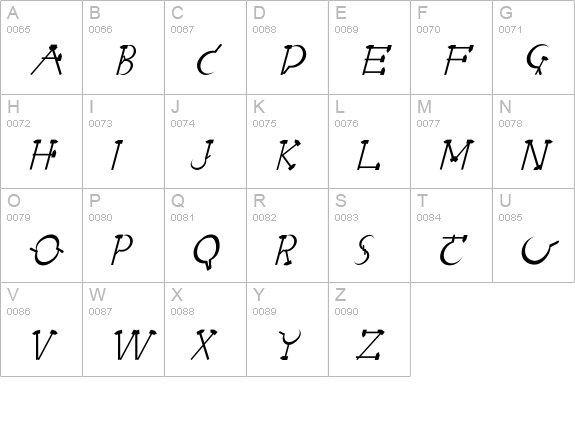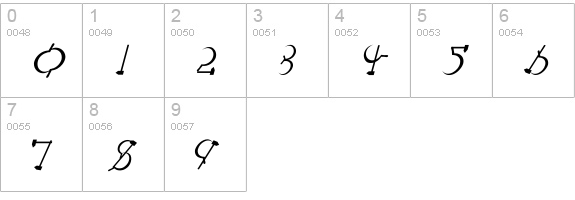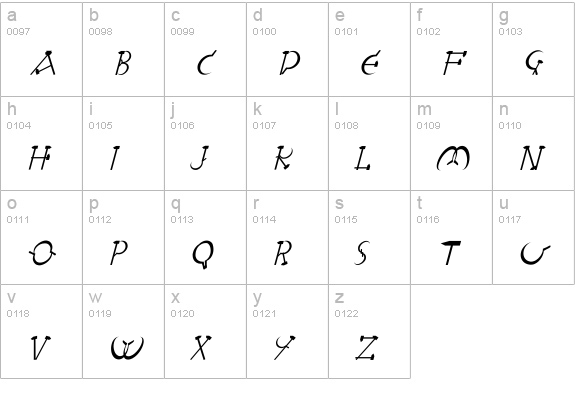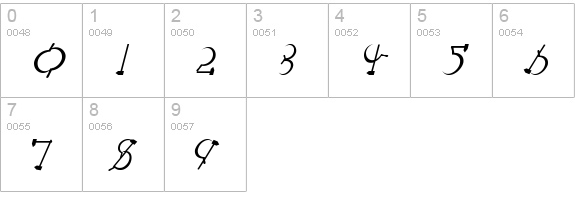
RedLetter Italic Font Details
RedLetter Italic is a distinctive, italic variant in the RedLetter typeface family \xE2\x80\x94 well suited to design and typography projects.
Introducing RedLetter Italic - a stunning and captivating font that effortlessly combines elegance with a touch of boldness. Crafted with meticulous attention to detail, this typeface boasts a truly unique design that is sure to make a lasting impression. Featuring delicate curves and graceful strokes, RedLetter Italic exudes a sense of sophistication and refinement. Its slanted and italicized form adds a dynamic element, lending an air of personality and flair to any project. Ideal for various creative endeavors, whether it be designing eye-catching logos, crafting exquisite invitations, or adding a touch of elegance to your personal blog, RedLetter Italic promises versatility and versatility. Its versatility extends to both digital and print mediums, ensuring that your message is conveyed flawlessly across all platforms. But perhaps the most enticing aspect of RedLetter Italic is that it is freely available for download at FontsMarket.com. Yes, you read that right - this exceptional font can be yours at absolutely no cost. So why wait? Enhance your designs today with the allure and charm of RedLetter Italic and let your creativity soar to new heights.